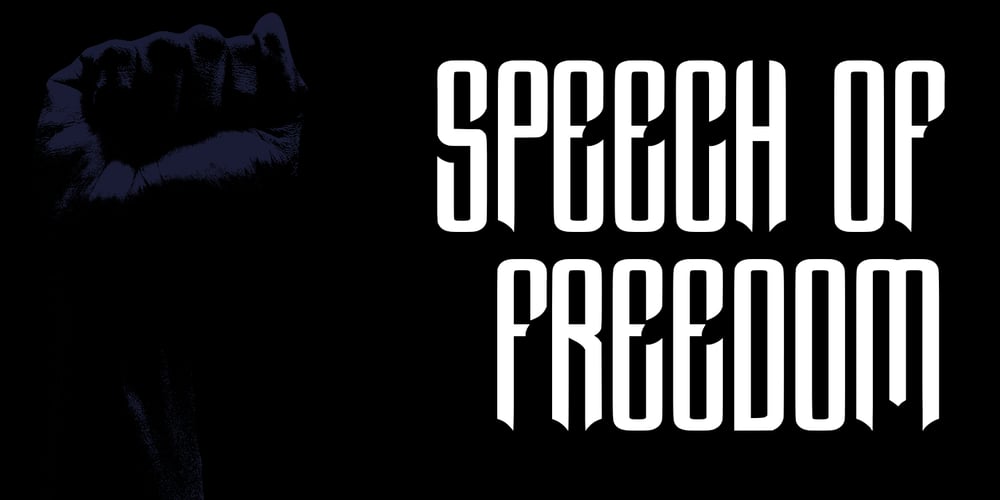
MC Angel Fist
MC Angel Fist font
MC Angel Fist Font Family was designed by Gilang Maulana and published by Maulana Creative. MC Angel Fist contains 1 styles and family package options. Angel Fist blackletter display font, fun character with alternates. To give you an extra creative work. Angel Fist font support multilingual language. This font is good for logo design, Social media, Movie Titles, Books Titles, a short text even a long text letter and good for your secondary text font with script or serif. Make a stunning work with Angel Fist font.Cheers,Maulana Creative